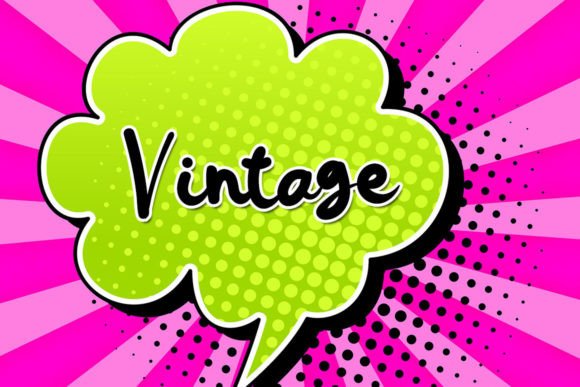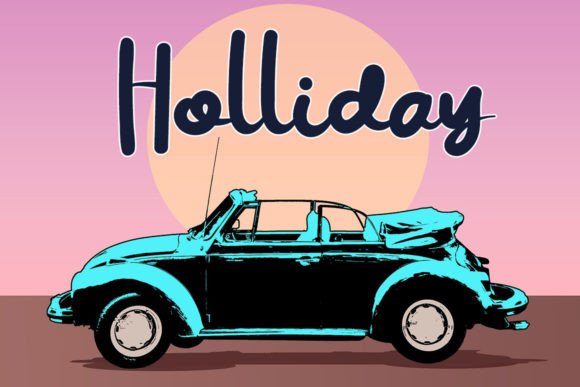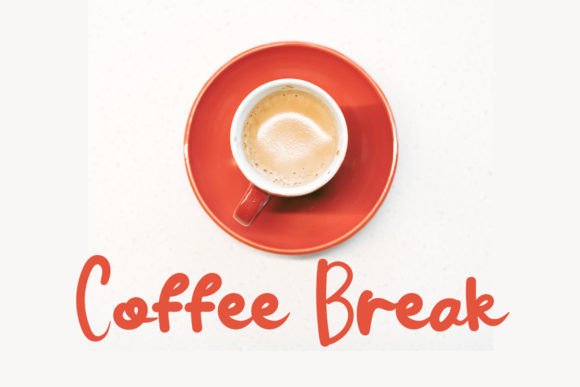
Solution Font
About Solution Font
Solution is a stunning and charming handwritten font that embodies freshness, cleanliness, and elegance. With its versatile and appealing qualities, this font can enhance a wide variety of projects, whether they are formal or informal. Its usage promises to infuse your designs with a delightful and invigorating touch.
Adaptability in Design
The beauty of Solution lies in its ability to adapt seamlessly to many design contexts. Whether you’re working on formal documents, casual projects, or anything in between, this font effortlessly lends its elegance to elevate your work. Therefore, it is an excellent choice for designers seeking flexibility.
Branding and Business Communication
In branding and business communication, Solution refines and beautifies your company’s image. Its fresh and clean appearance enhances the overall aesthetics of your materials. As a result, your business exudes a more attractive and polished appearance.
Simplifying Design Processes
By incorporating Solution into your designs, you simplify the creative process and make your content more visually pleasing. This font’s clean lines and elegant curves contribute to an improved overall design. Consequently, your message is not only well-received but also aesthetically pleasing.
In essence, Solution is more than just a font; it’s a design tool that adds beauty and sophistication to your creative endeavors. Its versatility and elegant design make it a valuable asset for designers and businesses looking to enhance their visual presentations. So, embrace Solution as your design solution and let it elevate your projects to new heights.
This font also works well for various other applications. For example, it can enhance wedding invitations or personal stationery with its elegant touch. Additionally, it suits digital media like websites or apps where a personal feel is desired. Its versatility ensures that no matter the project, Solution will add a unique flair that captivates viewers.